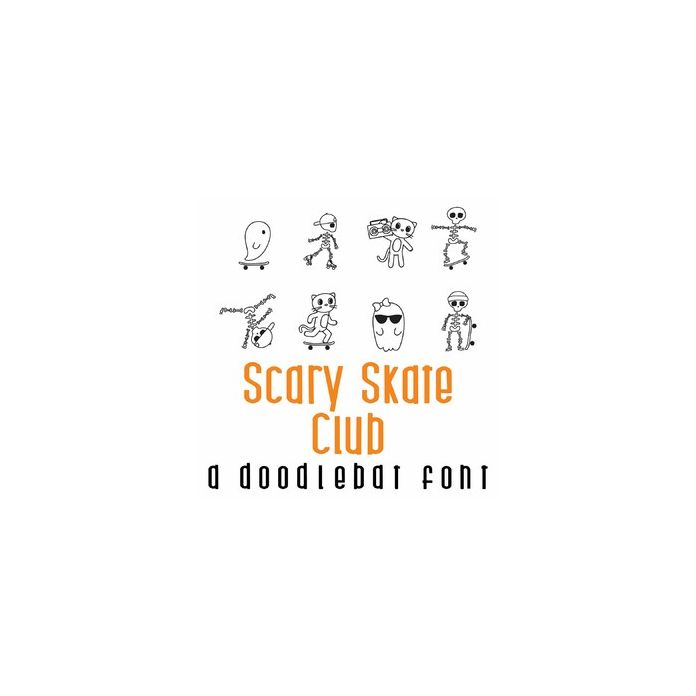
This fun doodlebat font features 26 adorable Halloween characters skating and having fun. Perfect for cards, gifts, decor, crafts, scrap book pages, planner stickers and more!